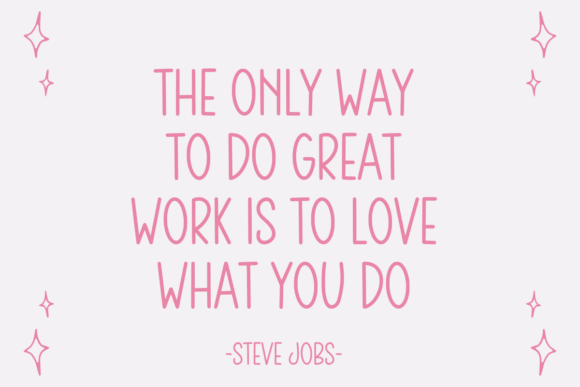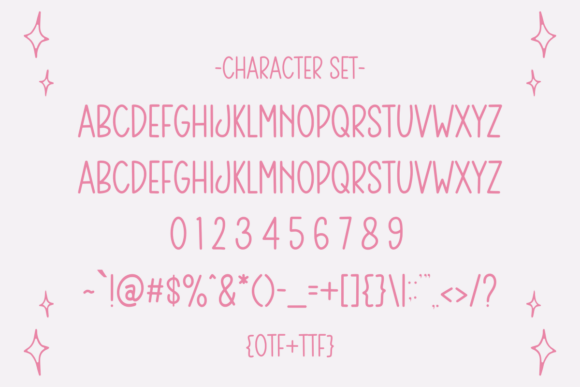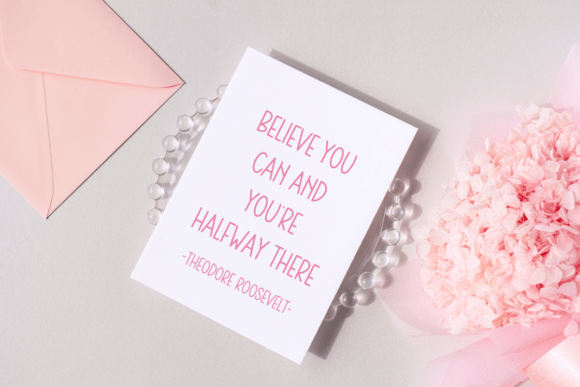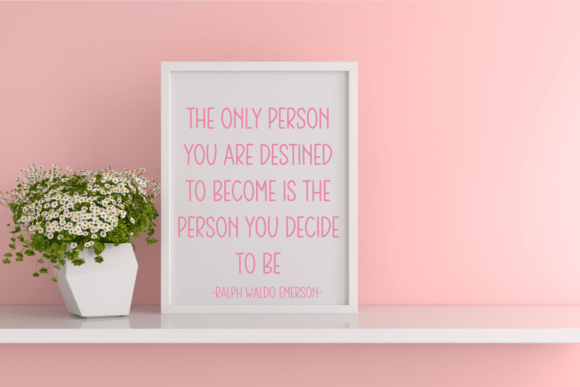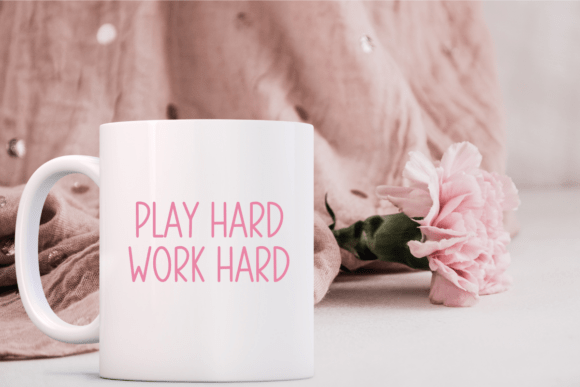
Introduction to Color Cute Font
Have you ever been working on a creative project, and the perfect font just wasn’t there? You know, that one font that adds that extra oomph to your design and makes it truly special? For many crafters, designers, and makers, finding the right font can be a challenge. But what if I told you there’s a font that’s specifically designed to bring a smile to your face and add a touch of whimsy to your projects?
Enter the Color Cute Font, a playful handwritten font that’s perfect for crafts, planners, KDP, stickers, greeting cards, and more. With its cute and friendly style, it’s no wonder why designers are falling in love with this font. Whether you’re working on a DIY project or creating digital designs, the Color Cute Font is a valuable design resource that’s sure to elevate your work.
Key Features of Color Cute Font
- High-quality design resource with a playful and cute aesthetic, perfect for creative projects.
- Includes a range of characters, including uppercase and lowercase letters, numbers, and punctuation marks, to provide a comprehensive font solution.
Honest Review: Color Cute Font
As a designer, I’m always on the lookout for high-quality design resources to elevate my creative projects. Recently, I had the chance to try out the Color Cute Font, and I’m excited to share my thoughts.
- ✨ The transparent background allows for seamless integration with other design elements.
- ✨ The font is highly customizable, making it perfect for a wide range of creative projects.
- ⚠️ The font may not be as versatile as some other design resources, limiting its use in certain creative projects.
Overall, I’m impressed with the Color Cute Font’s potential. While it may not be perfect for every designer, it’s a valuable resource for those looking for a high-quality, free download. With a little creativity, this font can add a touch of personality to any design project.
Tips for Getting the Most Out of Color Cute Font
For the best results, use the font on a transparent background to ensure the text stands out. Experiment with different font sizes and colors to add visual interest to your design. You can also pair the font with other high-quality design resources to create a unique and eye-catching look.
Color Cute Font is ideal for use in a variety of creative projects, including social media graphics, blog posts, and marketing materials. Its playful and whimsical style makes it perfect for designs that require a touch of personality and charm.